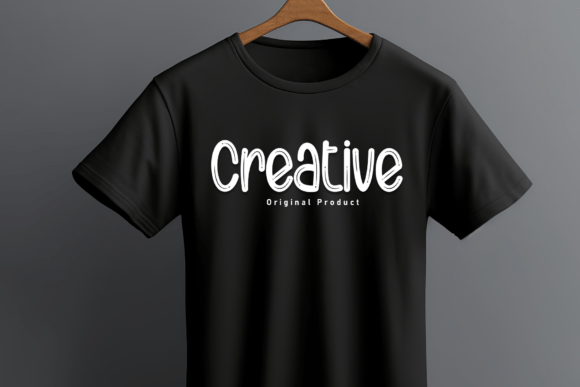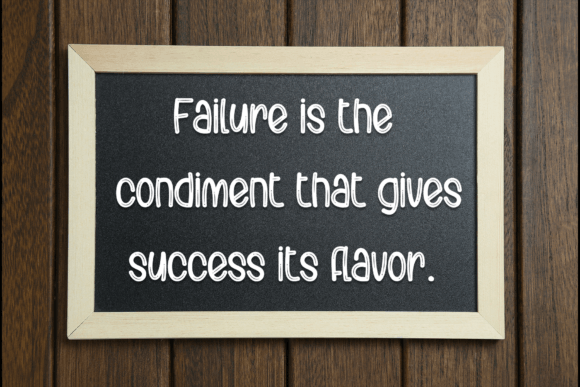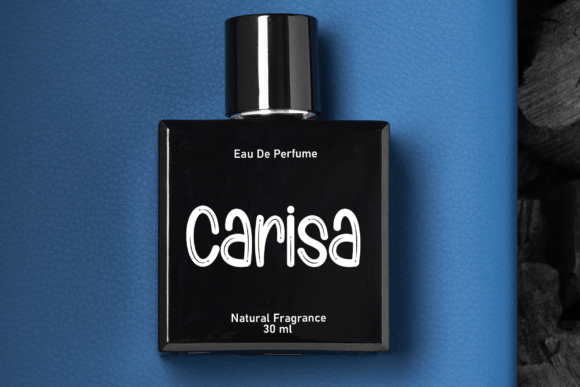
Introduction to Miracle Starlight Font
Miracle Starlight is a sweet and friendly handwritten font.
Key Features of Miracle Starlight Font
Why Choose Miracle Starlight Font?
Miracle Starlight Font offers exceptional quality and versatility, making it a valuable addition to your design toolkit. Whether you’re creating for personal projects or commercial use, Miracle Starlight Font delivers professional results.